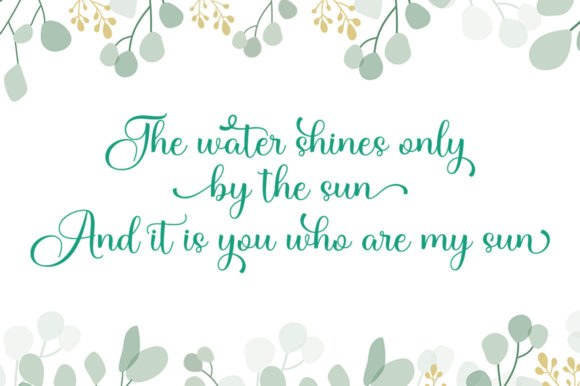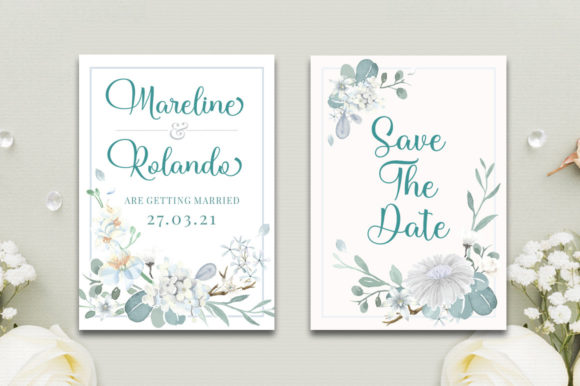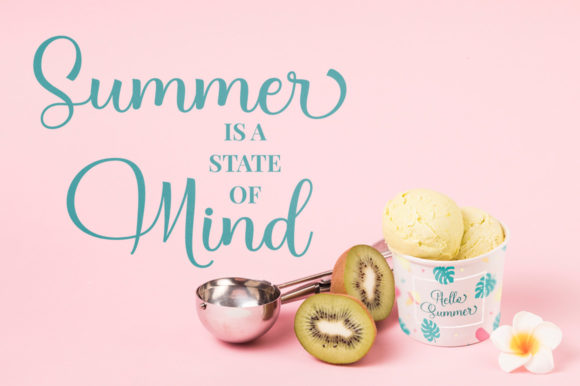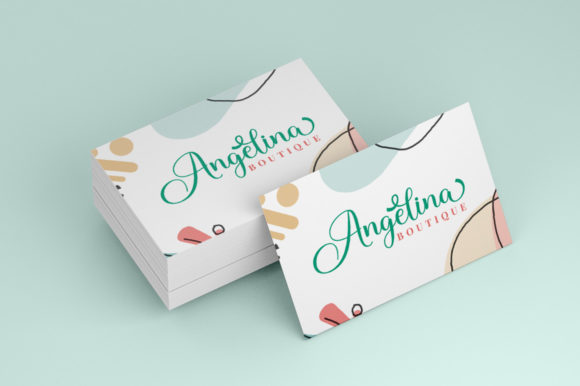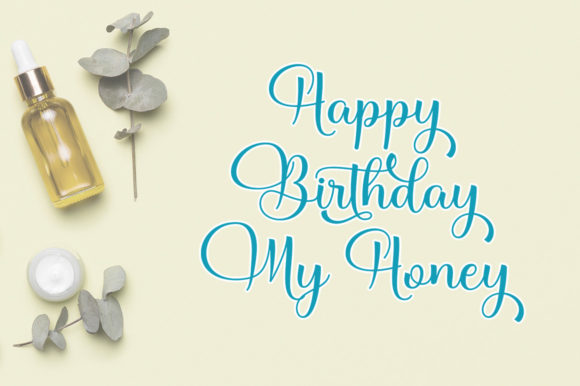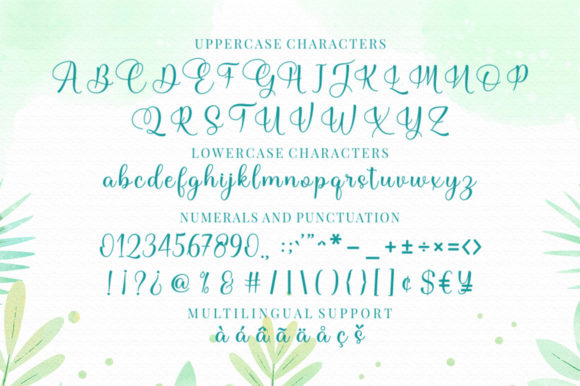
Unleashing the Charm of Handwritten Perfection
As a designer, there’s nothing quite like the thrill of finding that perfect font to bring your creative vision to life. It’s the moment when the words on your screen transform into a beautiful work of art, and you know you’ve made the right choice. For me, that moment came when I stumbled upon the Belia Anestasha Font – a sweet, round lettered and elegant handwritten font that exudes warmth and personality.
Belia Anestasha Font is more than just a pretty face; it’s a versatile tool designed to add a personal touch to a wide range of designs, from wedding invitations and thank you cards to logos and branding materials. Its PUA encoded nature makes it easy to access all the glyphs and swashes you need to create stunning, one-of-a-kind designs.
As a designer, you’ll love the Belia Anestasha Font for its elegance and charm. With its unique, handwritten style, it’s the perfect choice for anyone looking to add a touch of personality to their work. In this article, we’ll dive deeper into the world of Belia Anestasha Font and explore its many uses and benefits.
Belia Anestasha Font Key Features
- Font Family: Belia Anestasha
- Font Style: Script, Calligraphy
- Character Count: 1000+ glyphs, including Latin, Cyrillic, and Greek alphabets
- Font Size: Variable font, scalable up to 1000 points
- Unique Characteristics: Hand-drawn, elegant, and refined script design, ideal for wedding invitations, wedding stationery, and other special occasions
Belia Anestasha Font Review
Overall, I think the Belia Anestasha font is a beautiful and elegant choice for any design project. ✨ Its fluid curves and subtle lines give it a sophisticated feel that’s perfect for high-end branding, luxury packaging, and fine art.
- Unique letterforms that add a touch of whimsy and personality to any design
- Excellent legibility, making it easy to read even at small font sizes
- Works well in both serif and sans-serif environments, offering a lot of versatility
- Supports a wide range of languages, making it a great choice for global branding
- May be too ornate for some designs, potentially overwhelming the viewer
- Lacks a bold weight, which can make it difficult to create striking headlines
- May not be the best choice for body text, as it can be a bit too decorative
Overall, I think the Belia Anestasha font is a great choice for designers who want to add a touch of elegance and sophistication to their work. Just be mindful of its limitations, and use it in a way that complements your design rather than overwhelming it.
Here are some tips for getting the most out of the Belia Anestasha font:
- Use it for titles and headings to add a touch of elegance.
- Combine it with other fonts for a unique and creative look.
- Experiment with different font sizes and styles to find the perfect balance.
The Belia Anestasha font is perfect for:
- Artistic and creative projects.
- For the journal’s title page, use the font’s flowing lines to create a sense of movement and adventure.
- As the main font for journal entries, adding a touch of sophistication and whimsy to each page.
- Use watercolor illustrations or sketches to add a touch of imperfection and charm.
- Include vintage maps or travel tickets to add a sense of adventure and history.
- For the invitation’s main text, using the font’s flowing lines to create a sense of romance and enchantment.
- As the font for the RSVP card, adding a touch of whimsy and playfulness.
- Use delicate floral patterns or illustrations to add a touch of elegance and romance.
- Include a custom illustration of the couple or their wedding venue to add a personal touch.
Q: What is the recommended font size for using Belia Anestasha in body text?
For optimal readability, we recommend using Belia Anestasha in font sizes between 14pt and 24pt. This range allows the font to maintain its elegance while remaining legible in body text.